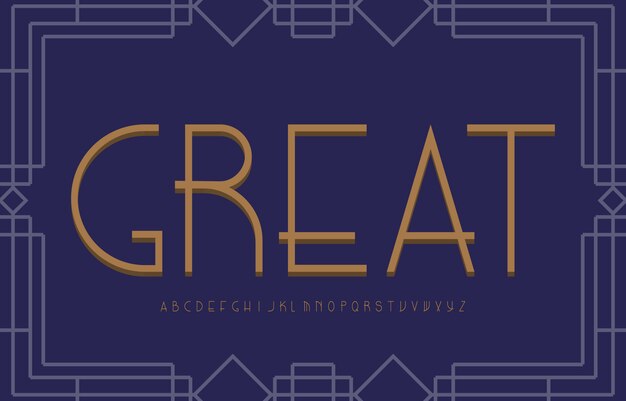
Art Deco Font Alphabet
Best Art Deco Fonts Metropolis Typeface by Tugcu Design Co is one Art Deco fonts that comes with upper case letters, Marcopolo is a fancy uppercase created by neuron The font has an art deco style and supports different Tiverton Font Trio Tiverton Font Trio. Art Deco Italic A to Z uppercase and lowercase letter stencils available in sizes from 1/4 inch to 12 inches This Art Deco Italic design is listed in the {Italic stencils} selection A creative cursive style Art deco display with ornamental letters featuring swashes for a perfect stencil project job. Letter alphabet font type text vector symbol design abc sign abstract retro word art deco vector border art deco border vector art deco vector borders 275 royalty free vector graphics and clipart matching Art Deco Letters 1 of 3 Free jonnyc4 Free Miguel Angel Free originalme2 Free patrickwsantos googai11 Free nightwolfdezines.
While Art Deco is still alive and kicking when it comes to desktop publishing and design of various sorts, when combined with effective fonts, it can help create that really eyecatching design projectSome of the things you should look for when choosing the perfect art deco fonts for your work are stated below 1) Some of these are popular marquee fonts used on both television and movie posters. This layered Art Deco font style offers a ton of versatility with the inclusion of four different styles inline regular, inline inside, inline 3D, and inline shadow You could change the inside colour, add a 3D or shadow effect, etc For those looking for a great Art Deco numbers font, this is one you should not overlook. Lettering Design Art Alphabet Art Typography Alphabet Lettering Fonts Art Nouveau Book Art Art Deco Design Fairytale Style and Inspiration An original lithograph of an Alphabet, composed of flamingos, published in Paris, c1900, from the portfolio “Lettres st Enseignes” by E Mulier.
Letter alphabet font type text vector symbol design abc sign abstract retro word art deco vector border art deco border vector art deco vector borders 275 royalty free vector graphics and clipart matching Art Deco Letters 1 of 3 Free jonnyc4 Free Miguel Angel Free originalme2 Free patrickwsantos googai11 Free nightwolfdezines. Royaltyfree stock vector ID Vector Art Deco Font Industrial alphabet with regular and light weights, various alternates and accented characters Typeface suitable for headlines, logos, packaging, card and poster designs. As the name implies this font was designed to create a vintage atmosphere of 19 gangsters And when designers developed this font they found inspiration in art deco style Which made it possible for Bootleggers font to get into our list of art deco fonts It is also a great option for those designers who want something gothic.
First released in 1929, Broadway exudes the atmosphere of the Roaring Twenties Thick black strokes on the left half of characters such as the 'B' and 'O' make the letterforms abstract and ornamental Where thick and thin strokes meet, the letterforms feature angles rather than curves, similar to the way Art Deco treats natural forms. As the name implies this font was designed to create a vintage atmosphere of 19 gangsters And when designers developed this font they found inspiration in art deco style Which made it possible for Bootleggers font to get into our list of art deco fonts It is also a great option for those designers who want something gothic. Browse worry, free commercial use fonts, web fonts, and app fonts tagged 'Artdeco' at Fontspring.